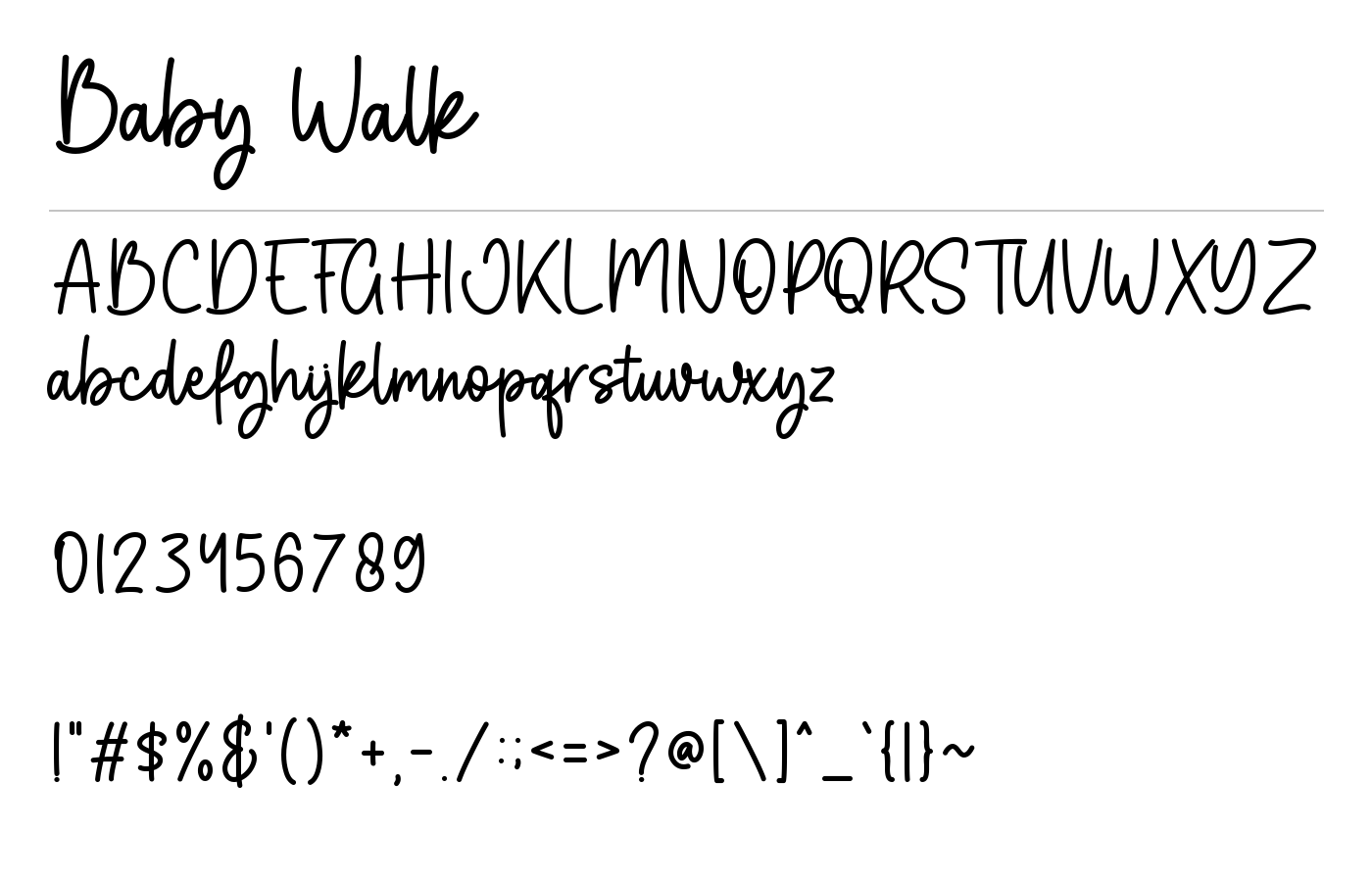
Baby Walk is a playful and casual handwritten sans serif font with a light weight and a tall, narrow appearance that gives it a friendly, approachable feel. Its smooth, rounded strokes and irregular letterforms create a natural, organic look perfect for informal designs like children's products, greeting cards, or whimsical branding. This font works well in headlines and short text where a warm, personal touch is desired.
Baby Walk Font
About Baby Walk Font